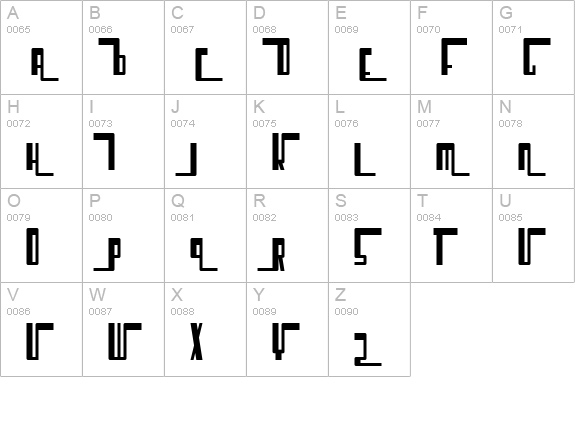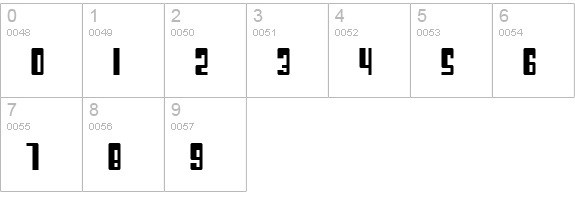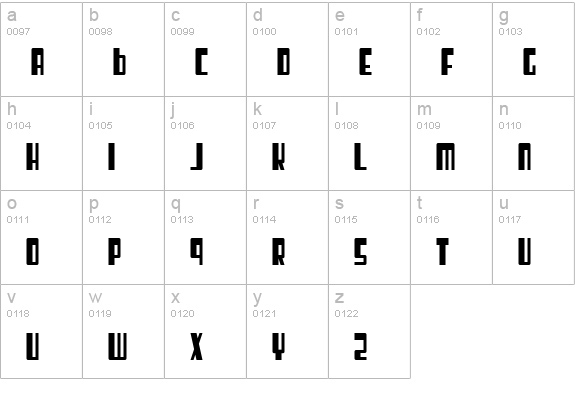
SF Cosmic Age Condensed Font Details
SF Cosmic Age Condensed is a distinctive, condensed-width variant in the SF typeface family \xE2\x80\x94 well suited to design and typography projects.
SF Cosmic Age Condensed is a captivating and futuristic font that transports you to a whole new dimension of design possibilities. With its streamlined and sleek appearance, this font effortlessly captures the essence of the cosmic age, evoking visions of interstellar travel and advanced technology. The condensed nature of SF Cosmic Age Condensed allows for maximum impact while conserving space, making it perfect for headlines, titles, and logos. Its bold and dynamic letterforms create a sense of energy and movement, adding an extra layer of excitement to any project. What makes SF Cosmic Age Condensed even more remarkable is that it is freely available to download at FontsMarket.com. This means that you can take advantage of its unique style and futuristic charm without any cost, making it an invaluable asset for designers, creatives, and anyone looking to add a touch of cosmic elegance to their work. Whether you're working on a science fiction novel cover, a futuristic website, or a cosmic-themed poster, SF Cosmic Age Condensed will elevate your design to new heights. Its versatility and eye-catching aesthetics ensure that your message will be delivered with impact and style. So why wait? Embrace the cosmic age and download SF Cosmic Age Condensed for free at FontsMarket.com today. Unleash your creativity and let this font take your design projects to infinity and beyond.